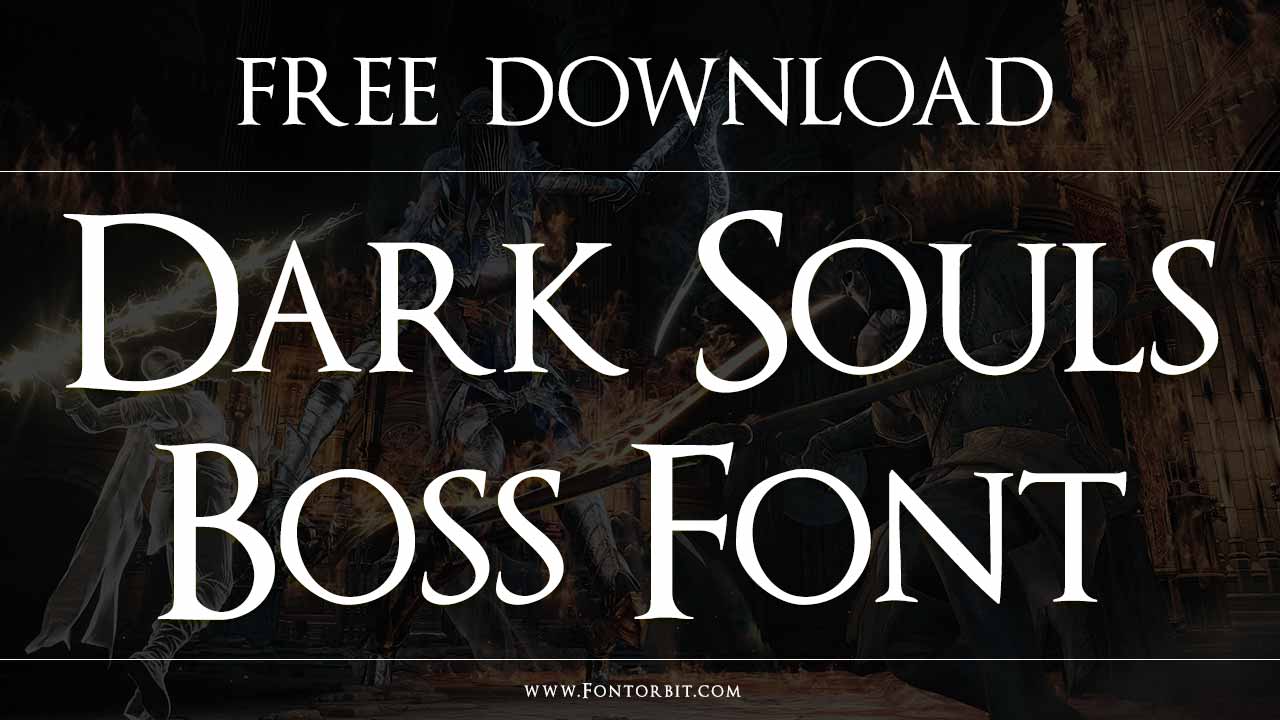
The Dark Souls series, developed by FromSoftware and published by Namco Bandai Games, is known for its brutal difficulty, eerie atmosphere, and distinctive typography.
The boss fight text, in particular, has become iconic due to its bold, haunting style. The fonts used in the game, designed by Manfred Klein (Optimus Princeps) and influenced by Robert Granjon (Adobe Garamond), help create a medieval, gothic feel that perfectly matches the game’s tone.
Fonts Used in Dark Souls Series
The Dark Souls games utilize a combination of serif fonts that evoke an ancient and mystical feeling. Below are the key fonts associated with the series:
Dark Souls Font Family
- Optimus Princeps (by Manfred Klein) – Used for logo and boss fight text.
- Adobe Garamond (based on Robert Granjon’s work) – Used in menus and game text.
- Trajan Pro – Alternative serif font often compared to Optimus Princeps.
- Cinzel – A modern free alternative to the classic Roman fonts.
- Forum – Another fantasy-inspired serif font used in similar themes.
Why is the Dark Souls Boss Font So Iconic?
The boss fight text in Dark Souls has a distinct, blurred effect that makes it instantly recognizable. This style is achieved through:
- Serif typography for a gothic and medieval look.
- Bold uppercase letters to create an imposing presence.
- Blur and glow effects enhance mystery and drama.
- The dark colour palette matches the game’s eerie atmosphere.
This unique styling has inspired memes, posters, stickers, and fan art within the gaming community.
How to Recreate the Dark Souls Font Effect
Comparison of Dark Souls Fonts
| Font Name | Designer | Style | Usage in Dark Souls |
|---|---|---|---|
| Optimus Princeps | Manfred Klein | Serif, Roman | Boss fight text, logo |
| Adobe Garamond | Robert Granjon | Serif, Classic | Menus, UI text |
| Trajan Pro | Adobe Systems | Serif, Elegant | Similar alternative |
| Cinzel | Natanael Gama | Serif, Modern | Free alternative |
| Forum | Denis Masharov | Serif, Decorative | Fantasy themes |
Final Thoughts
The Dark Souls boss font is an essential part of the game’s dark and immersive atmosphere. With its strong serif style, bold presentation, and eerie effects, it has left a lasting mark on gaming and design. Whether you’re a designer, a content creator, or a fan of the game, understanding this font can help you add a dark fantasy aesthetic to your projects.
What font is used in Dark Souls boss fights?
The text closely resembles Optimus Princeps with added blur effects.
Can I recreate the Dark Souls boss text effect?
Yes! Apply blur and glow effects using Photoshop or other software.
Why does Dark Souls use a serif font instead of sans serif?
Serif fonts provide a medieval, gothic, and classic look fitting the game’s theme.
What fonts are similar to Dark Souls typography?
Alternatives include Trajan Pro, Cinzel, and Forum.
What font is used in Dark Souls III?
Dark Souls III uses Adobe Garamond for in-game text and menus.
Does Elden Ring use the same font as Dark Souls?
Elden Ring has a slightly modified serif typeface but shares the medieval aesthetic.